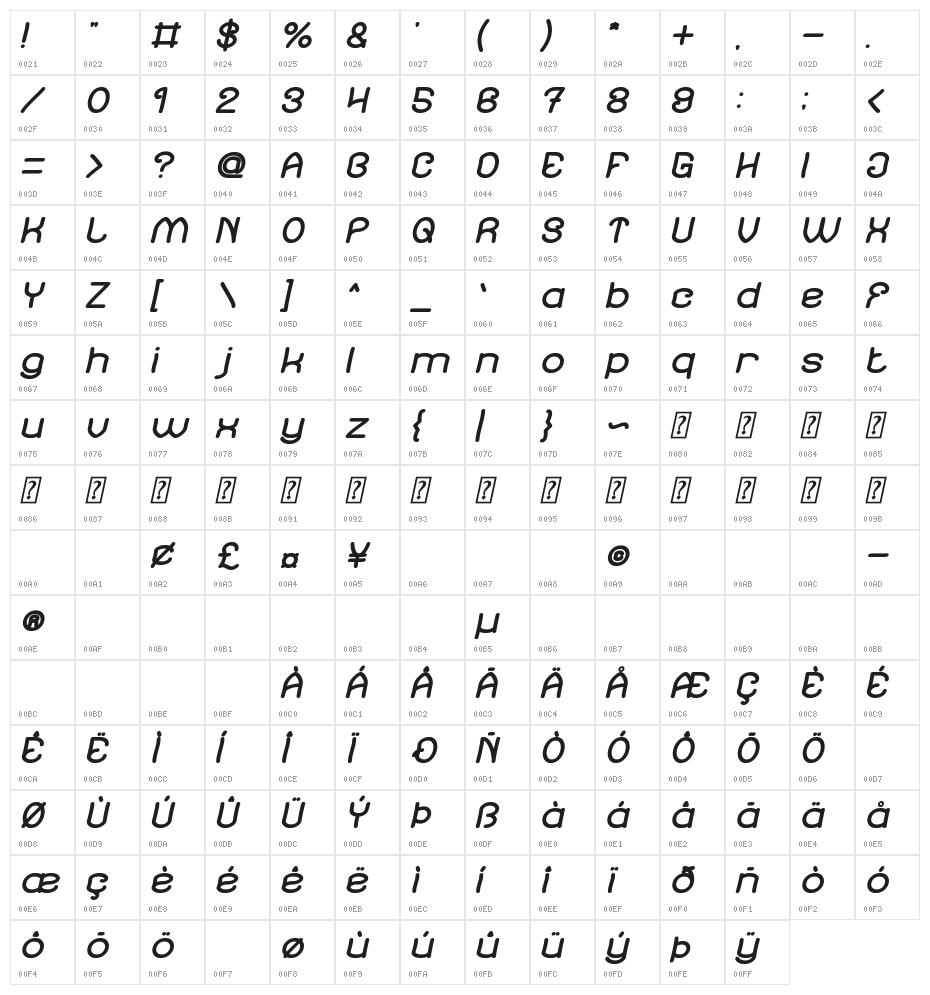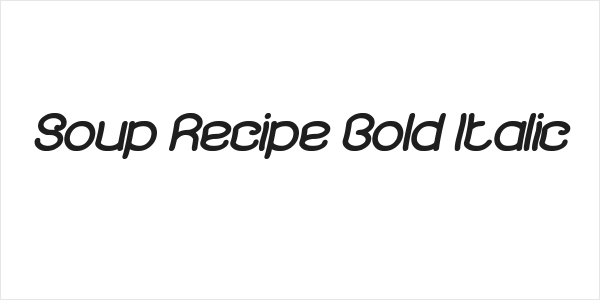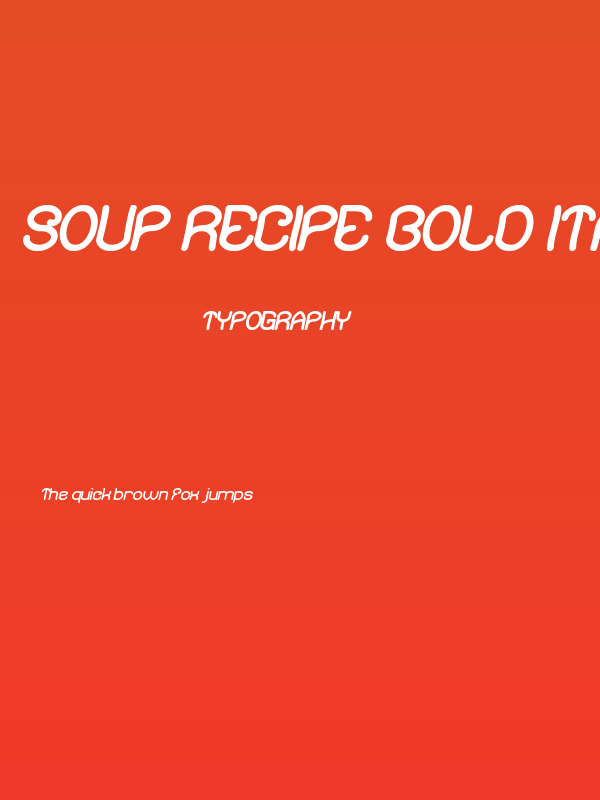
Soup Recipe Bold Italic Font
Soup Recipe Bold Italic Description
This font features a playful and bold style with a distinct italic slant, giving it a dynamic and energetic appearance. The characters are rounded and smooth, with a consistent stroke width that adds to its boldness. The uppercase and lowercase letters maintain a uniform height, enhancing readability while preserving a whimsical touch. Numbers and special characters follow the same design principles, ensuring a cohesive look across all glyphs. This font's unique style makes it suitable for projects that require a fun and engaging visual impact.
| Proposed Projects | Ideal for children's books, playful branding, posters, and creative social media graphics. |